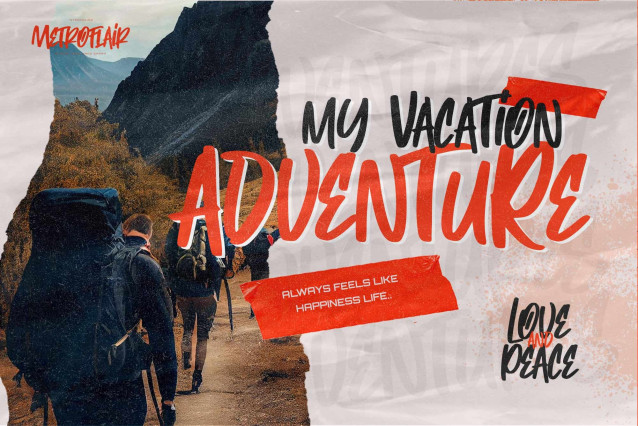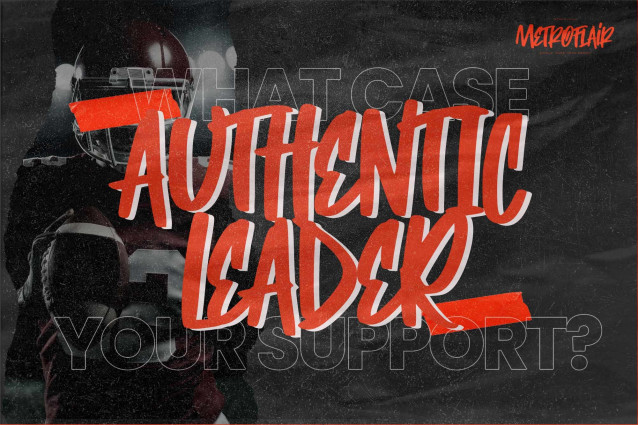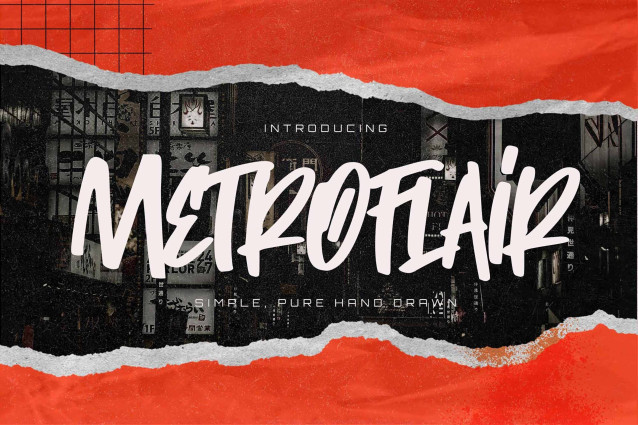
Metroflair – Simple Pure Hand Drawn Font
Metroflair This is a Simple Pure Hand Drawn, this is a handmade font with more alternates and modern texture, this font is perfect for making a strong statement in your designs.
Perfect for:
• Logos
• Posters
• Product packaging
• Branding
• Advertisements
• Invitations
• Stationery
• Wedding designs
• Labels
• Photography watermarks
• Quotes
• and more